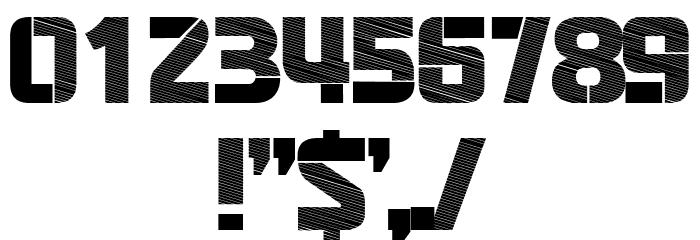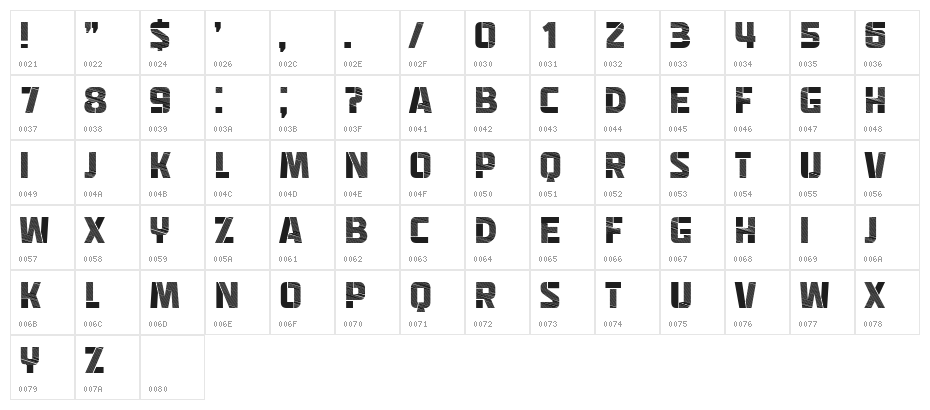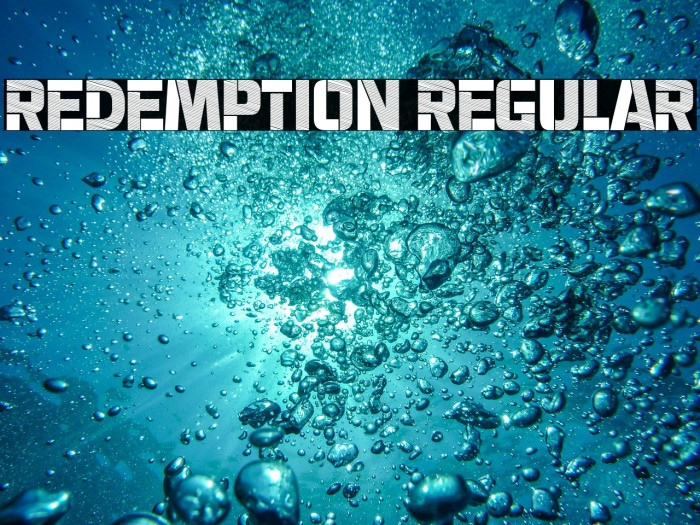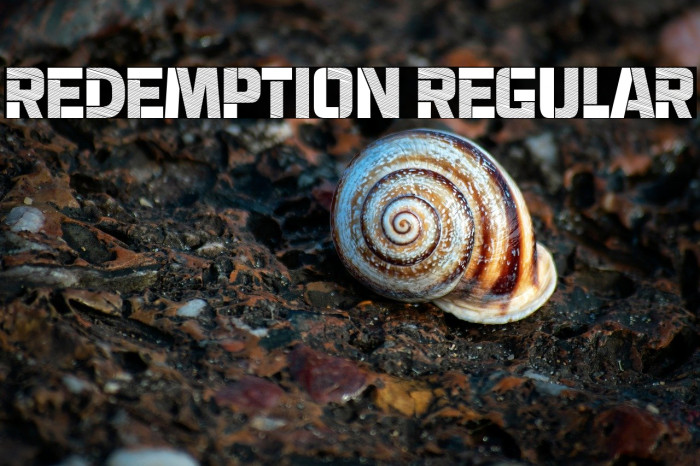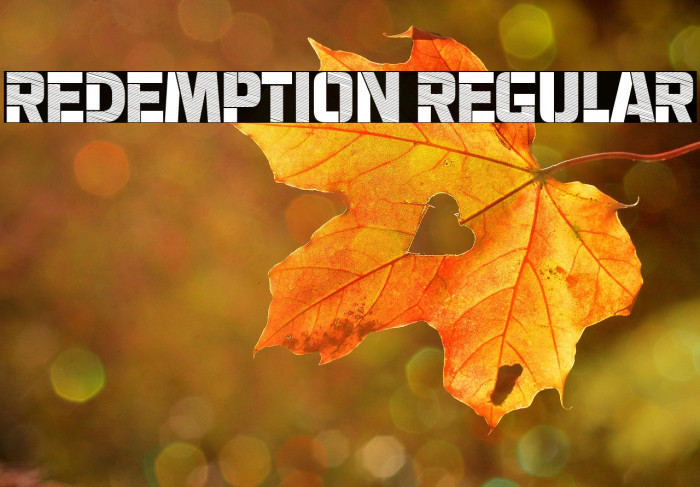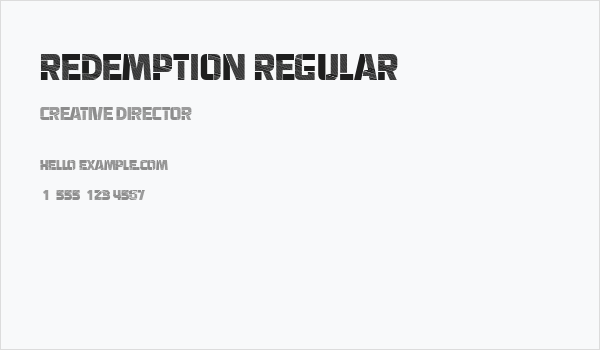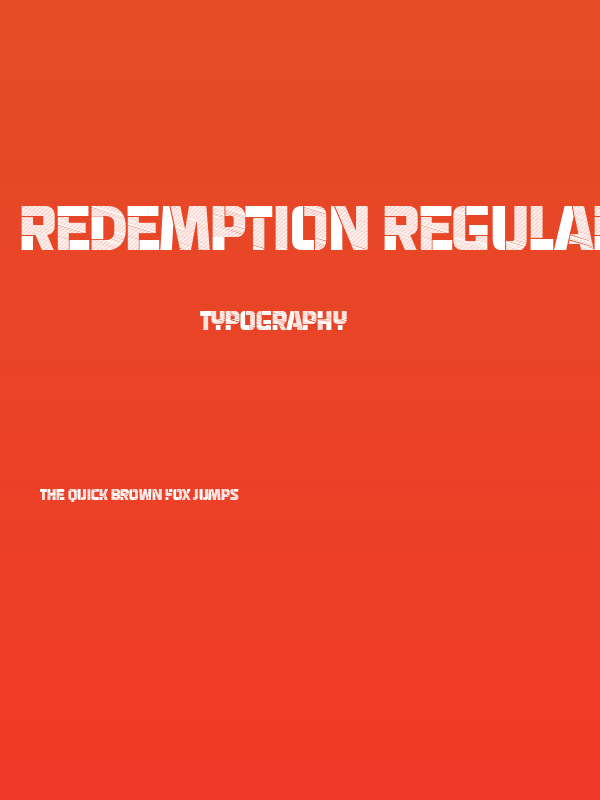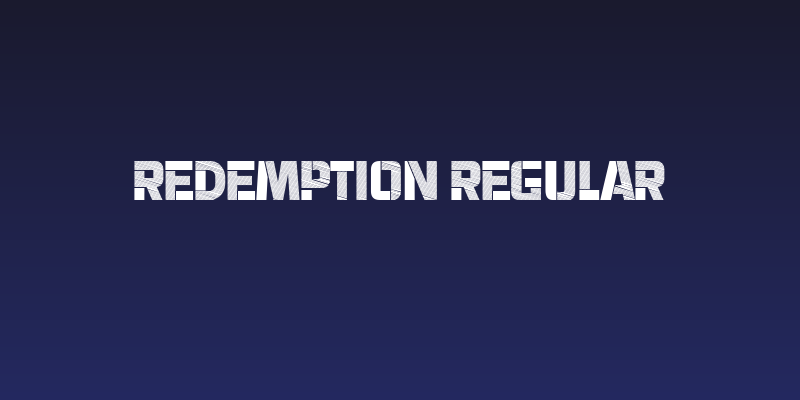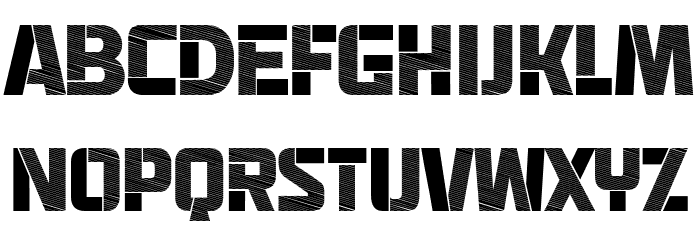
Redemption Regular Font
Redemption Regular Description
This font features a bold, geometric style with a modern twist. The characters are constructed with solid, block-like shapes that are intersected by diagonal lines, creating a dynamic and edgy appearance. The uppercase and lowercase letters maintain a consistent weight, contributing to a cohesive look. Numbers and special characters follow the same design principles, ensuring uniformity across all glyphs. The font's unique design makes it stand out, offering a visually striking option for various creative projects.
| Proposed Projects | Ideal for branding, posters, album covers, and any project requiring a bold, modern aesthetic. |